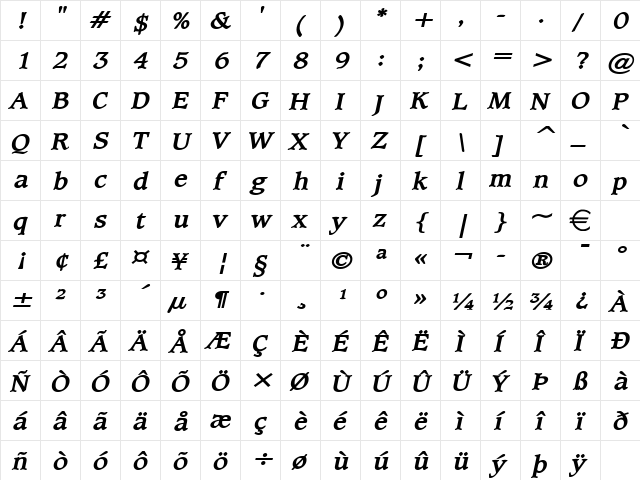
ClaytonWide BoldItalic Font Preview
Design Context for ClaytonWide Typeface
ClaytonWide takes a measured approach to typography — its balanced proportions and neutral character make it a reliable workhorse for both digital and print work. Its italic angle brings a sense of urgency and motion to the letterforms. The heavy weight commands attention and anchors typographic hierarchies.
Pro Tip: Try ClaytonWide for annotation and caption copy alongside an upright companion — the contrast in angle creates a dynamic but ordered typographic system.